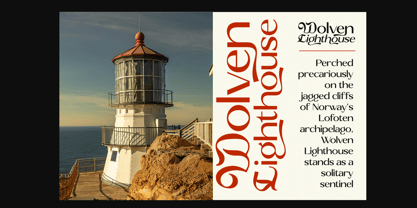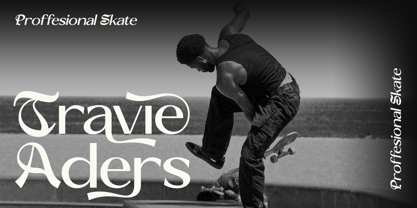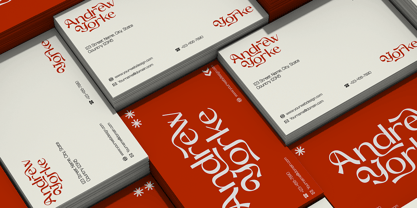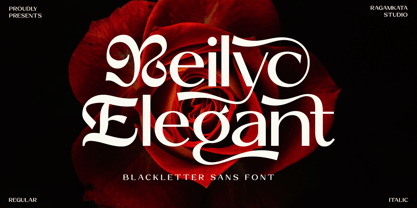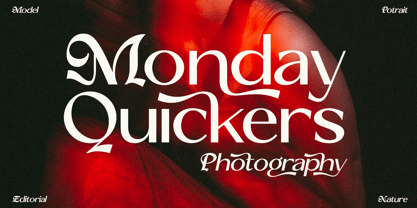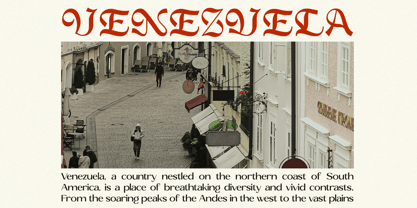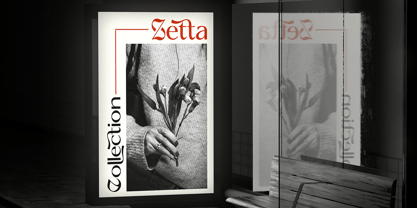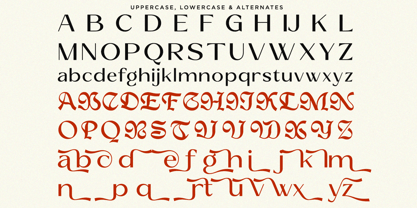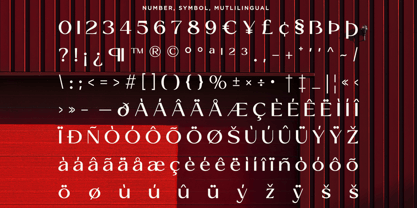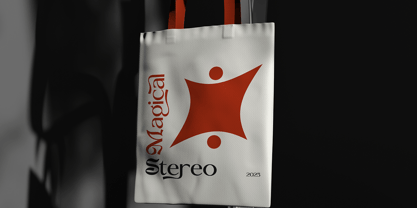
Reilyc Elegant
The Reilyc Elegant Font Family was designed by Yogiswhara Dio Prakoso Riadi and published by RagamKata. Reilyc Elegant contains 2 styles and family package options. More about this family
Reilyc Elegant is a striking contemporary blackletter serif typeface that merges the classic sophistication of traditional blackletter styling with modern legibility. It honors the dramatic, expressive character of historic blackletter while introducing smooth curves and crisp detailing for a polished, refined look. This font achieves an ideal blend of artistic flair and practical clarity, making it versatile for everything from editorial layouts to brand identities. What You'll Get : - Reilyc Elegant Regular - Reilyc Elegant Italic - Uppercase Alternate - Lowercase Alternate - Number and Symbol - Multilingual Support Thanks, Have a wonderful day Ragamkata Studio